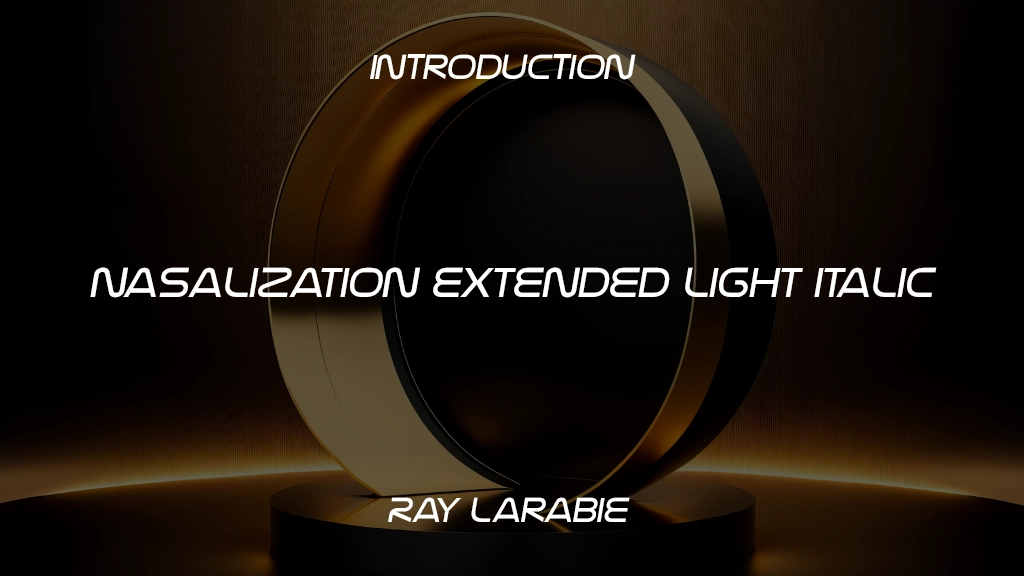
Nasalization Extended Light Italic is a fun font that can be used for a variety of designs. It is an Italic font, which means that the letters are slanted. The font was designed by Ray Larabie and is available for free for personal use.